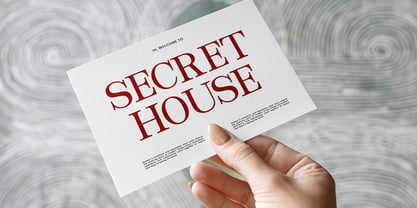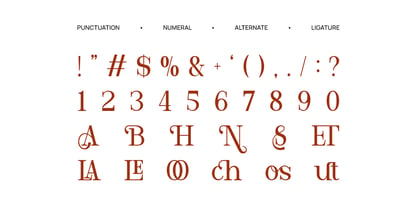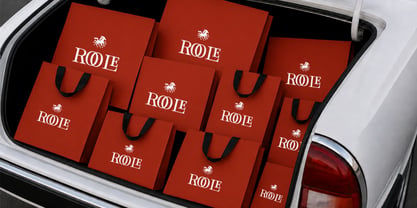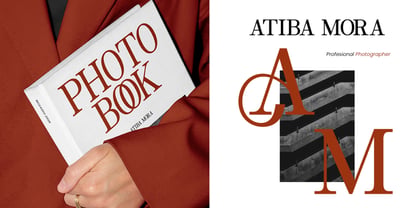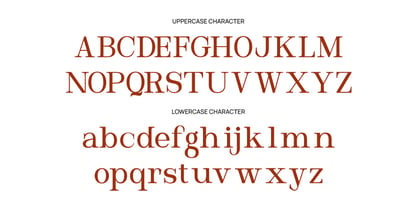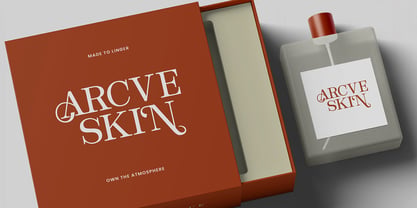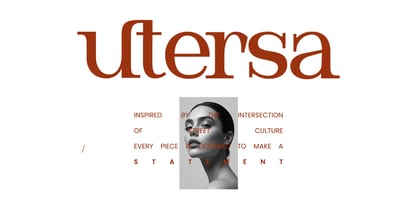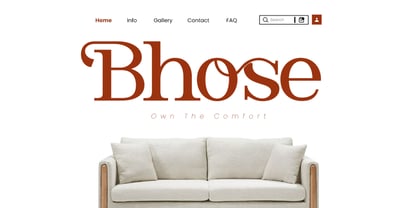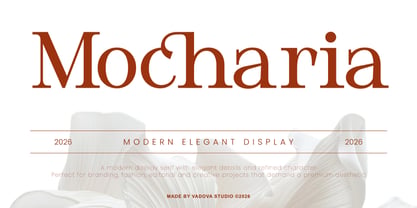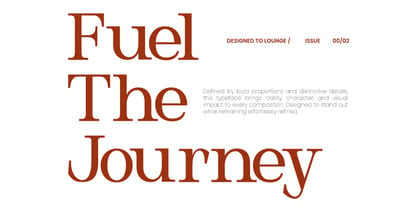
Mocharia
Mocharia is a refined display serif typeface that combines timeless elegance with contemporary sophistication. Designed with graceful high-contrast strokes, distinctive serif terminals, and carefully balanced proportions, it delivers a luxurious typographic presence while maintaining excellent readability. The font includes uppercase and lowercase characters, numerals, punctuation, and ligatures, providing flexibility for premium branding and editorial applications.
Relevance and Use Case is perfect for premium creative projects that require elegant typography with a timeless personality. Its refined serif construction makes it highly effective for luxury branding, fashion editorials, boutique identities, cosmetic packaging, wedding stationery, magazine headlines, book covers, hotel branding, jewelry collections, and sophisticated digital campaigns where distinctive typography becomes the focal point of the design.